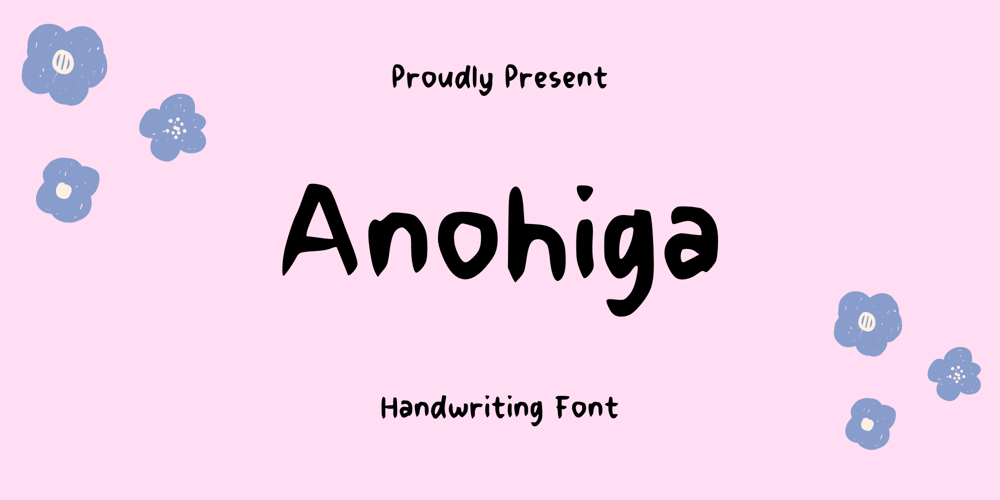
Anohiga Font Family was designed by published by Sidkia Fonts. Anohiga contains 1 styles and family package options. Anohiga is a cool regular handwritten font but looks bold. You can apply it in your various designs. Please enjoy it!